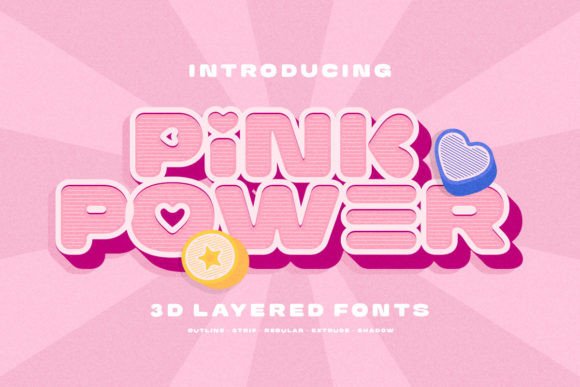
Introducing Pink Power Font, the ultimate choice for creating elegant logos and captivating designs! This 3D retro font, created by saridezra, is a stunning addition to any collection. With its layered styles and accompanying icons, Pink Power is a must-have for every creative enthusiast.
Unleash your imagination with Pink Power! This font is not just limited to logos; it is perfect for a range of purposes including posters, branding, merchandise, and any retro style project you can dream of. Its versatility knows no bounds, allowing you to create visually striking and unique designs that will leave a lasting impression.
What sets Pink Power apart is its unique lowercase feature. The combination of lowercase and uppercase letters within a single word adds an extra touch of sophistication and flair. This captivating fusion ensures that your creations will stand out from the crowd and exude elegance.
Whether you're a professional designer or simply looking to add a touch of retro charm to your personal projects, Pink Power Font is the ideal choice. Its bold and stylish appearance guarantees that your designs will grab attention and make a statement. Get ready to elevate your artwork to new heights with this eye-catching font.